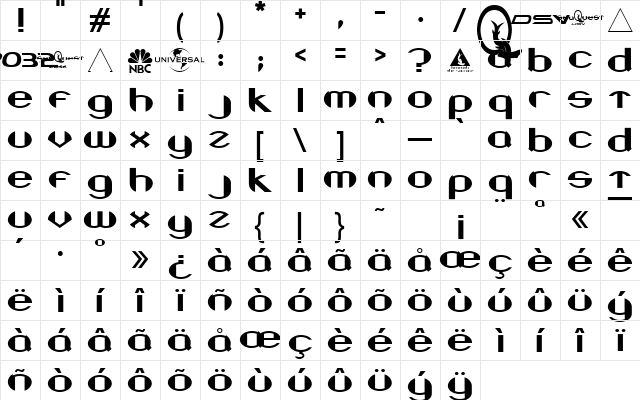
Beneath the Surface Regular
| Foundry | S. Bergasa |
Beneath the Surface is a composed and adaptable typeface that performs quietly and consistently across a wide range of design contexts.